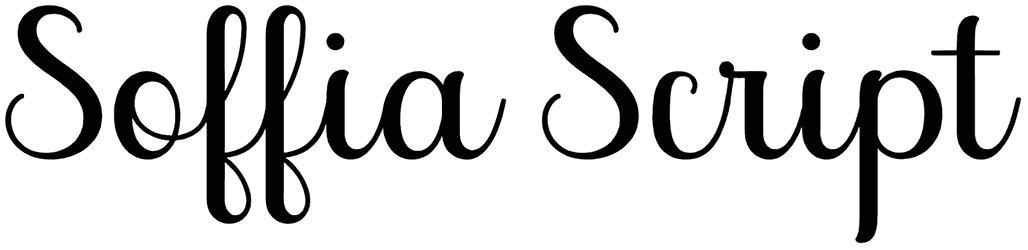
Soffia Script Font
Let us show you a shapely and voguish outward entitled Soffia Script. This script font with elegant curves and soft lines could lend your texts a gorgeous face. As a versatile font, Soffia Script is perfectly nice for a lot of items, for example, wedding stationery, planners, business cards, and other kinds of stuff.